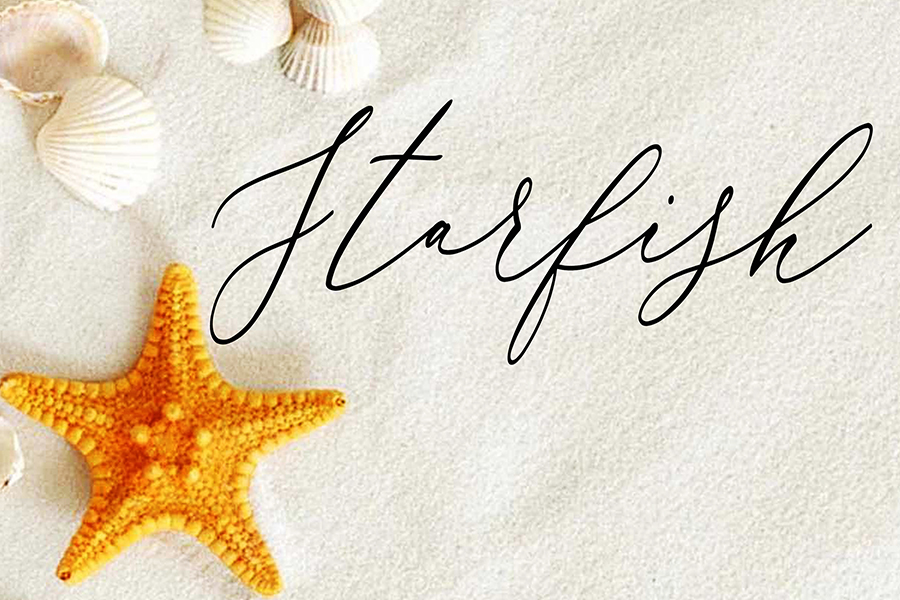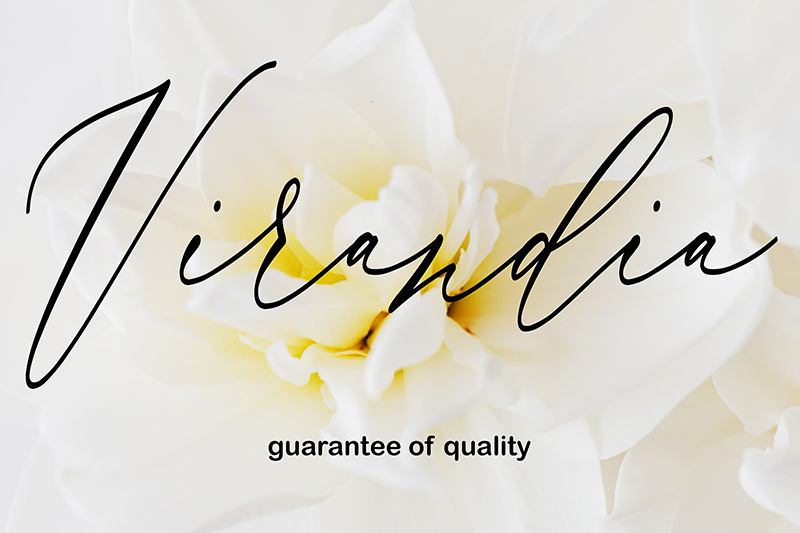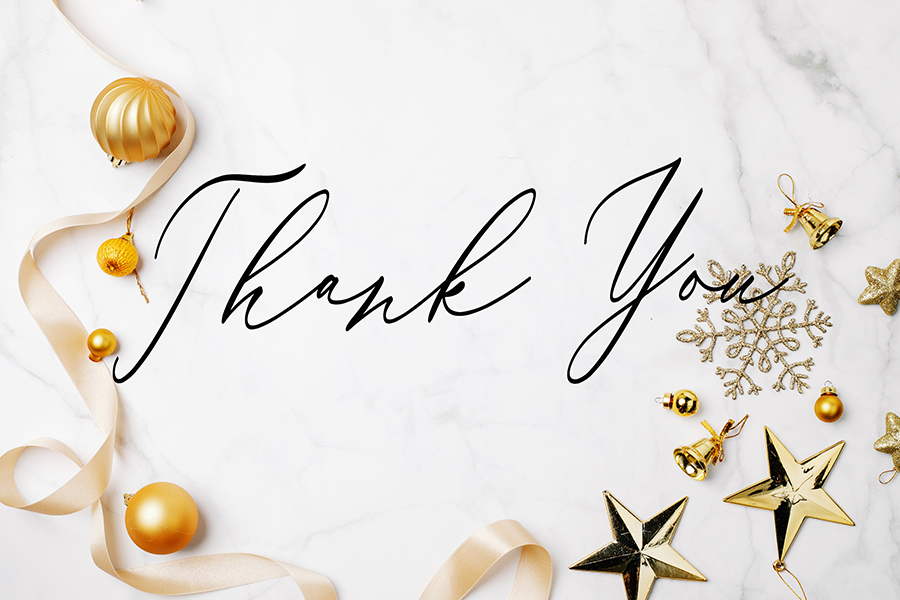
Virandia Script Font
This is a line font with a feminine and minimalistic style. Created by a font designer named Diyastudio. Virandia Script will work perfectly for fashion, e-commerce brands, trending blogs, wedding boutiques or any business that wants to look luxurious and elegant.